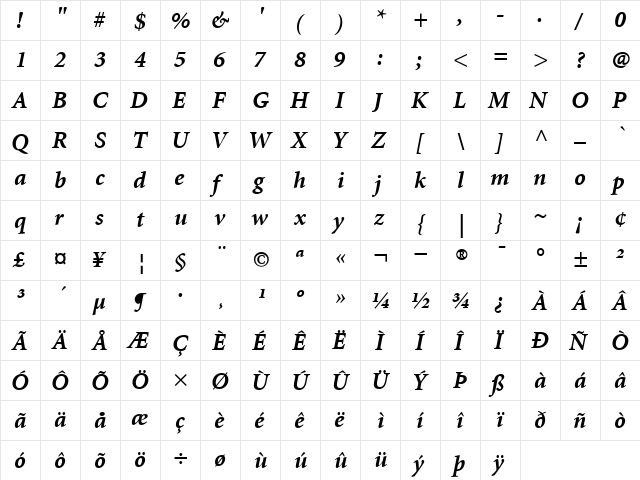
AdobeCorporateIDMinion BoldItalic Font Preview
Design Context for AdobeCorporateIDMinion Typeface
AdobeCorporateIDMinion takes a measured approach to typography — its balanced proportions and neutral character make it a reliable workhorse for both digital and print work. The dynamic lean of this cut emphasises speed and emphasis in any layout. Its bold stroke weight gives it real presence on the page.
Pro Tip: Try AdobeCorporateIDMinion for annotation and caption copy alongside an upright companion — the contrast in angle creates a dynamic but ordered typographic system.